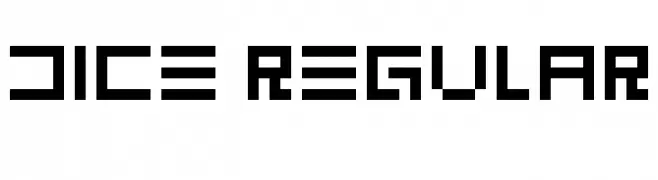
An elegant serif font with a dynamic italic style.
A festive, decorative font with characters inside Christmas ornaments, ideal for holiday themes.
A playful, bold font with a hand-drawn outline effect.
A bold, modern font with a condensed and impactful design.
A bold, italicized sans-serif font with a modern and dynamic style.
A bold, italicized, and modern font with a clean, condensed style.
A bold, modern sans-serif font with a strong and clean appearance.
A sleek, modern, extra-light italic font with a narrow, streamlined design.
A modern, extra light sans-serif font with a tall, condensed style.
A bold, modern sans-serif font with strong, uniform strokes.
A bold, italicized typeface with a modern and impactful style.
A modern, tall, and narrow sans-serif font with a clean and professional look.
A modern, tall, and narrow sans-serif font with clean lines and balanced spacing.
A sleek, modern font with a subtle italic slant and consistent stroke weight.
A bold, modern sans-serif font with clean lines and geometric structure.
A modern, slightly condensed sans-serif font with an italic slant.
A modern, condensed sans-serif font with uniform stroke width and high legibility.
A modern, italicized sans-serif font with a clean and slightly condensed style.
Bold, angular font with outlined, three-dimensional characters.
A futuristic, geometric font with bold, angular shapes and a modern aesthetic.
A bold, playful font with quirky, rounded characters and a whimsical style.
A playful, casual handwritten font with fluid and dynamic strokes.
A playful, casual handwritten font with fluid, irregular strokes.
A playful, hand-drawn font with a whimsical and artistic style.
A playful, hand-drawn font with elongated, irregular strokes.
A sharp, graffiti-inspired font with elongated, edgy characters.
A bold slab serif font with strong, consistent strokes and a classic aesthetic.
A bold, graffiti-inspired font with dynamic, irregular shapes.
A bold, graffiti-inspired font with playful, hand-drawn characters.